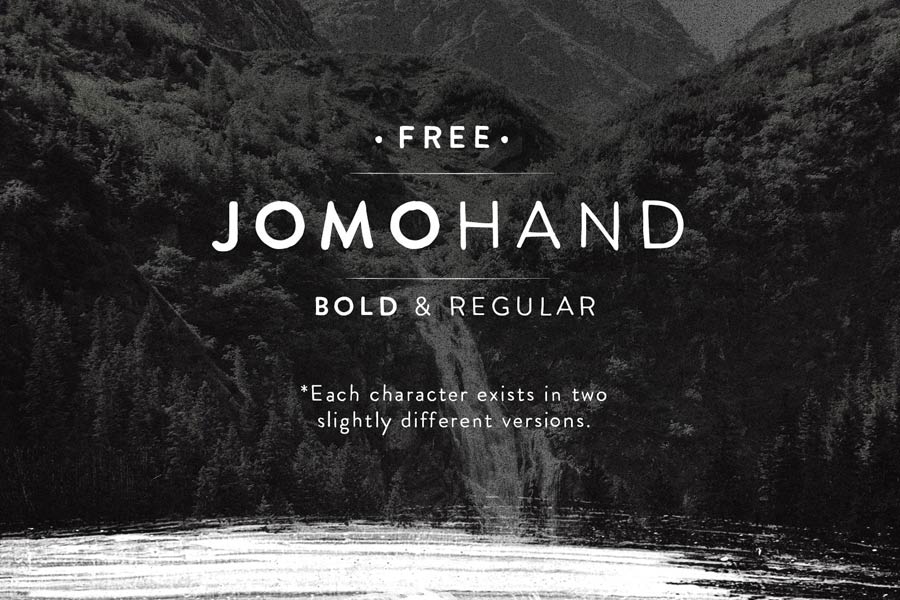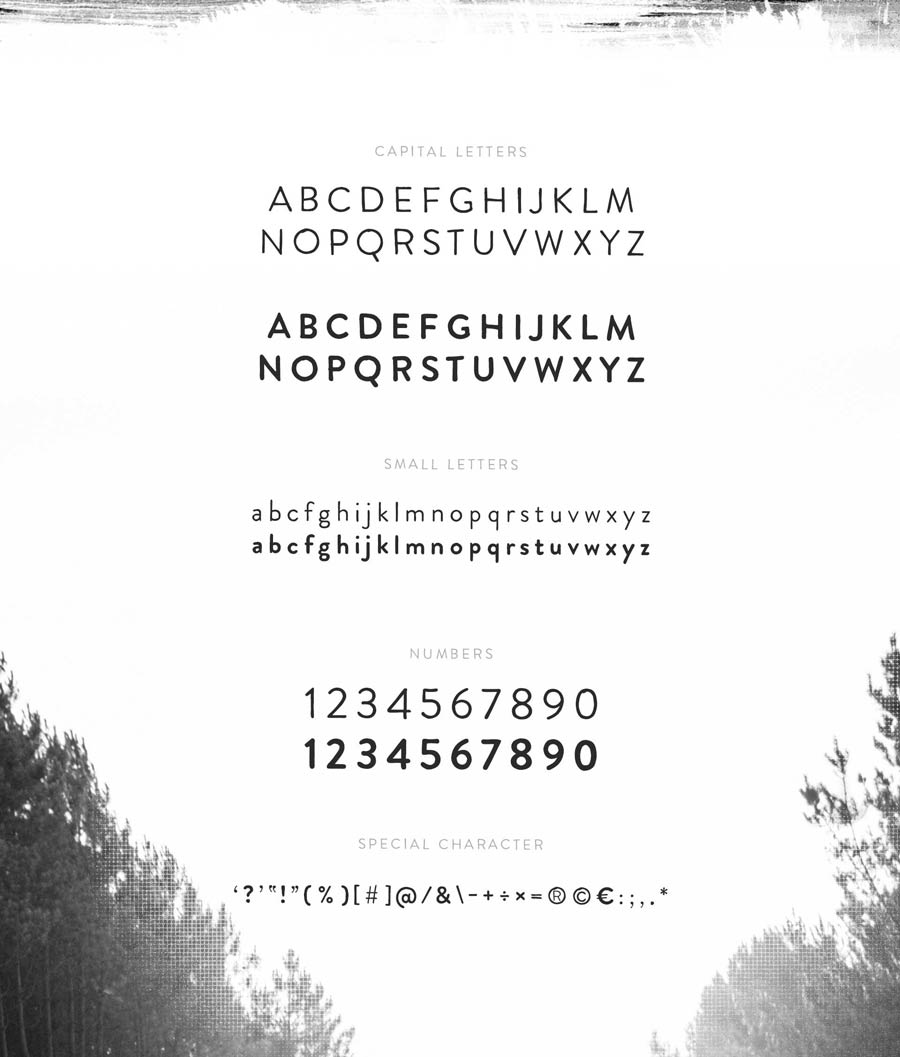
Jomohand is a friendly rounded handwritten font that comes with 2 weights. The handwriting is really clean and tidy, and almost feels like it’s a rounded sans serif font with a hint of handwriting effect on it. The unique feature of the font is that each character comes with 2 different style, it will appear different when you type the same letter twice.